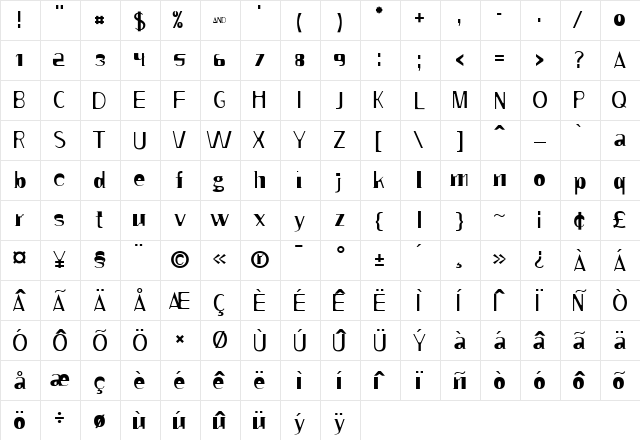
Colony Medium Font Preview
Colony Medium
Design Context for Colony Typeface
Colony takes a measured approach to typography — its balanced proportions and neutral character make it a reliable workhorse for both digital and print work.